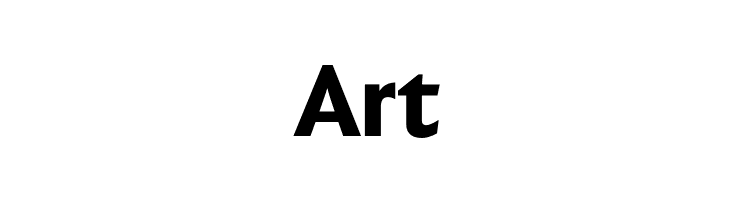
A bold, modern sans-serif font with a clean and balanced design.
A modern, italic sans-serif font with a dynamic and versatile style.
A bold, clean typeface with thick strokes and uniform design.
A bold, italic sans-serif font with a modern and dynamic style.
A bold, modern sans-serif font with thick, uniform strokes and clean lines.
A bold, italicized font with strong, dynamic strokes and a modern feel.
A classic serif font with elegant lines and balanced proportions.
A refined serif typeface with a slight italic slant and light weight.
A classic serif font with elegant, refined strokes and pronounced serifs.
An elegant serif font with a classic italic style and refined appearance.